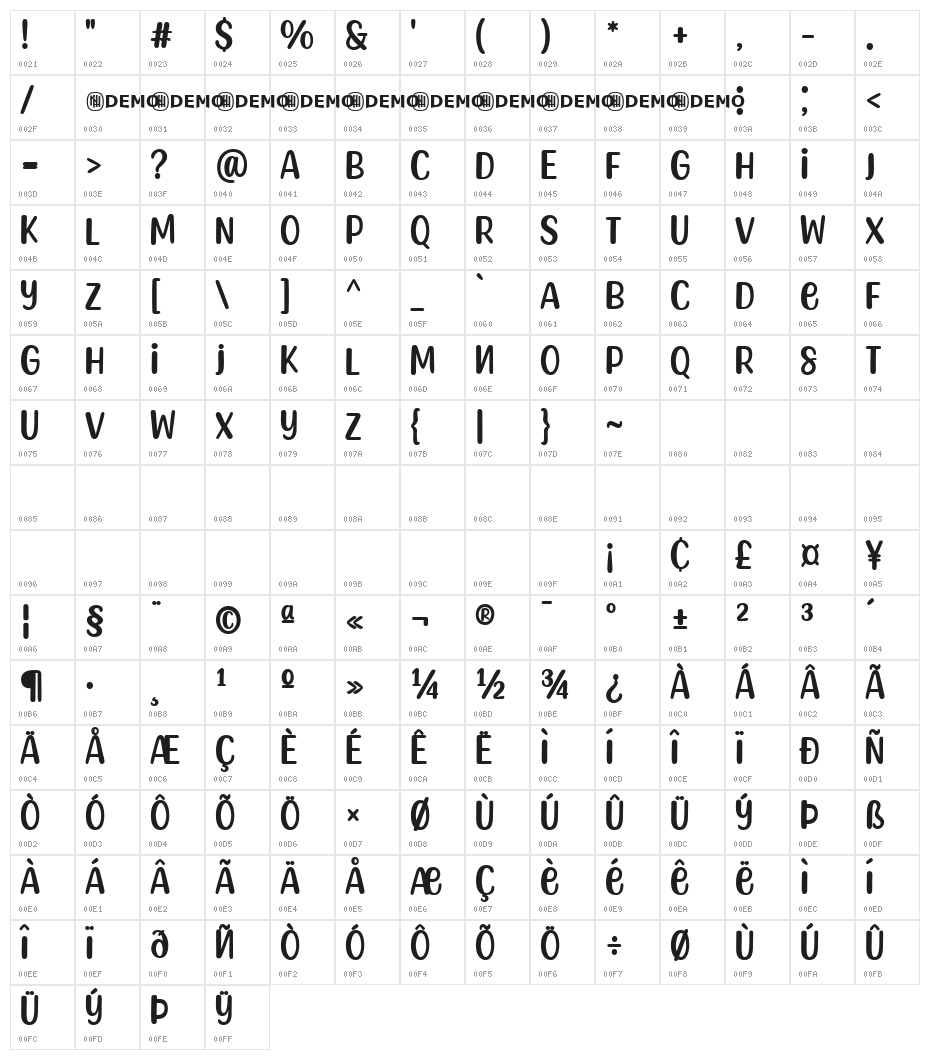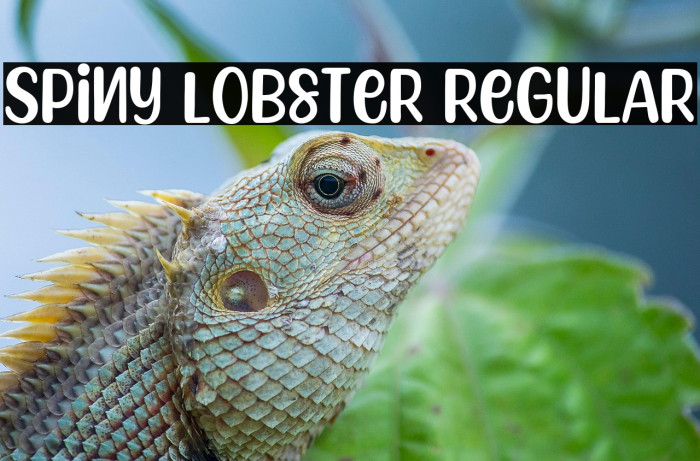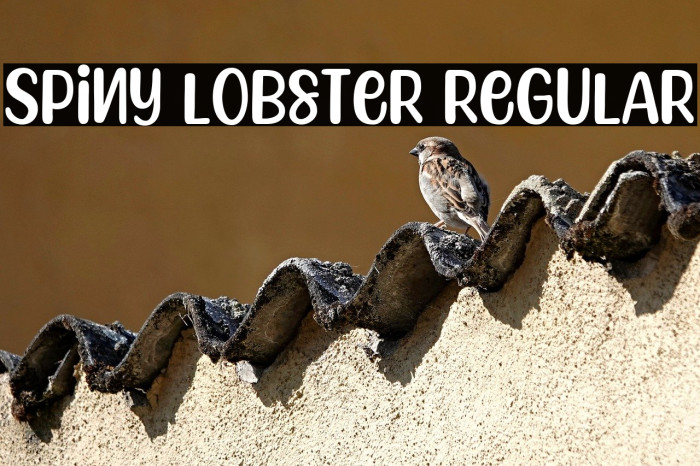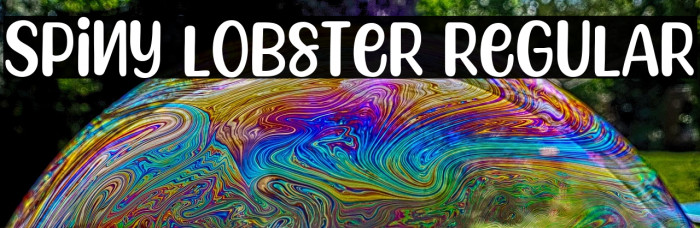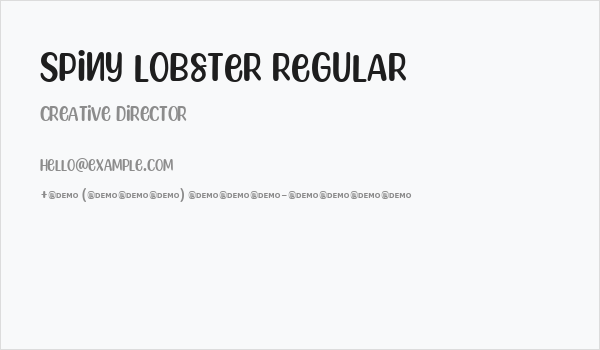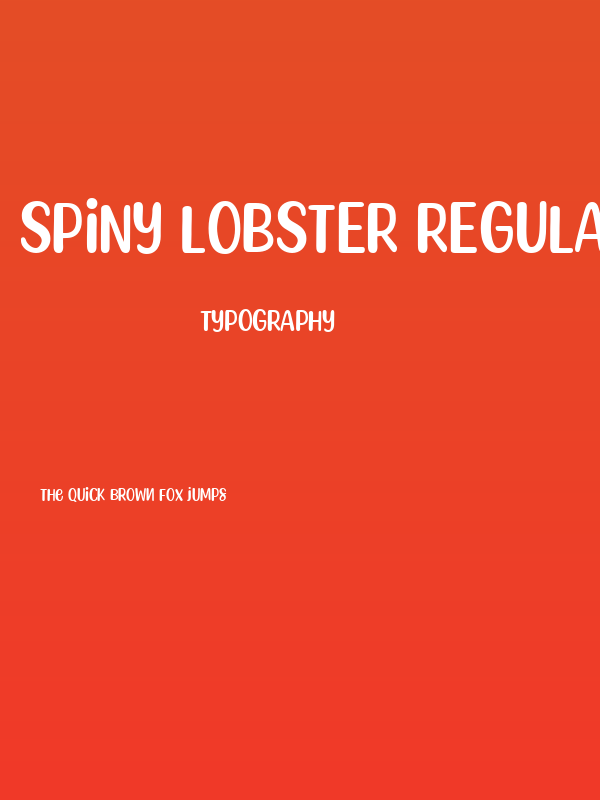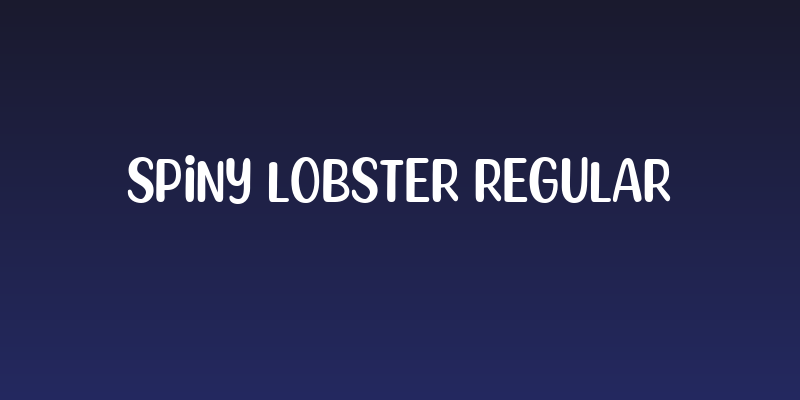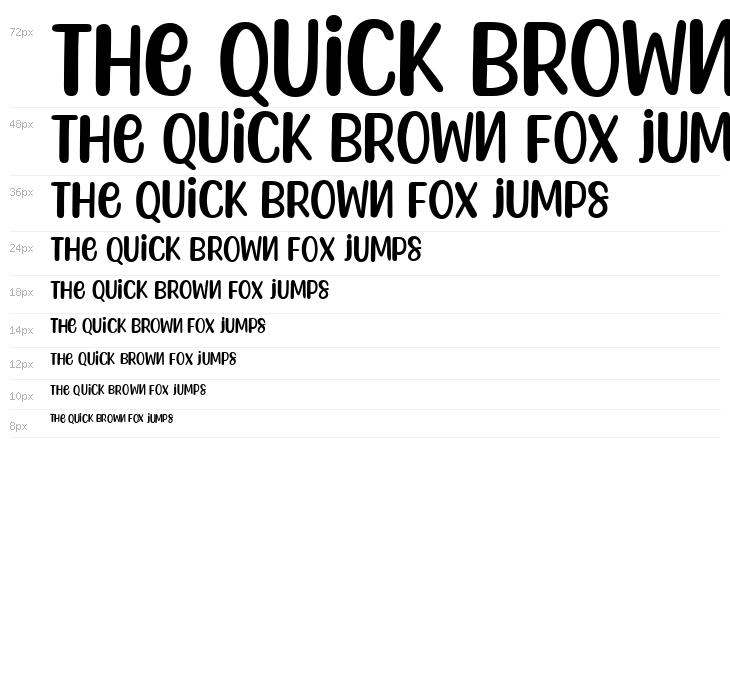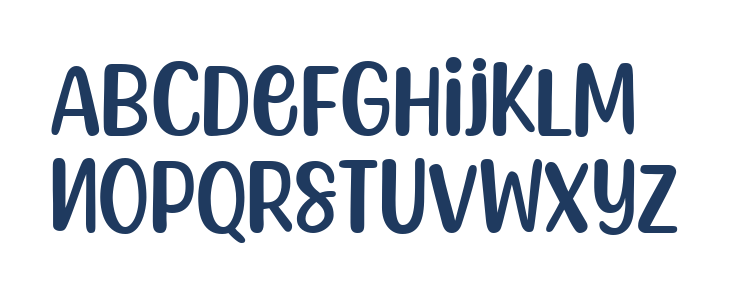
Spiny Lobster Regular Font
Spiny Lobster Regular Description
This font features a playful and rounded style with a bold presence. The characters are smooth and slightly condensed, giving a friendly and approachable feel. The uppercase and lowercase letters maintain a consistent weight, while the numbers and special characters blend seamlessly with the overall design. The font's curves and rounded edges contribute to its modern and casual appearance, making it suitable for a variety of creative projects. Its unique style stands out, offering a distinctive look that can enhance branding and design work.